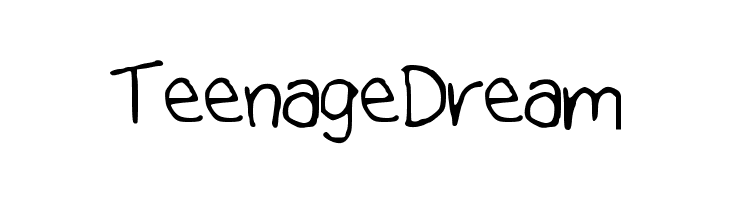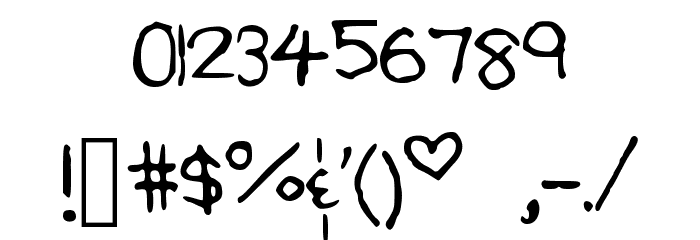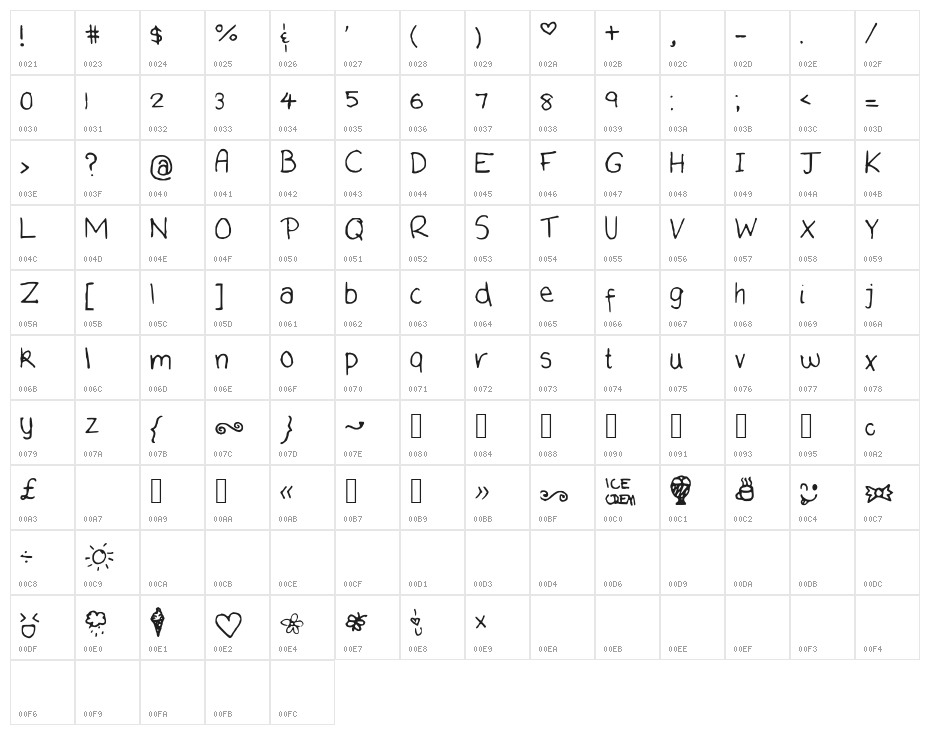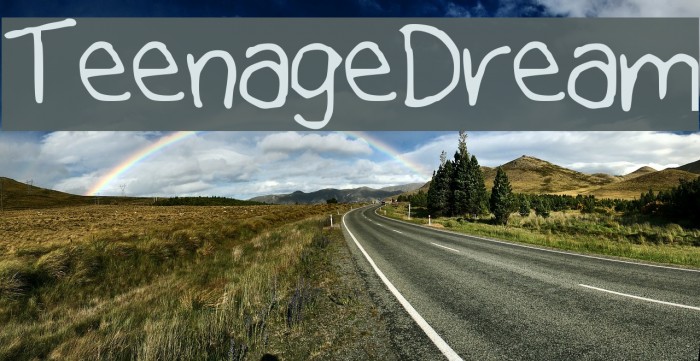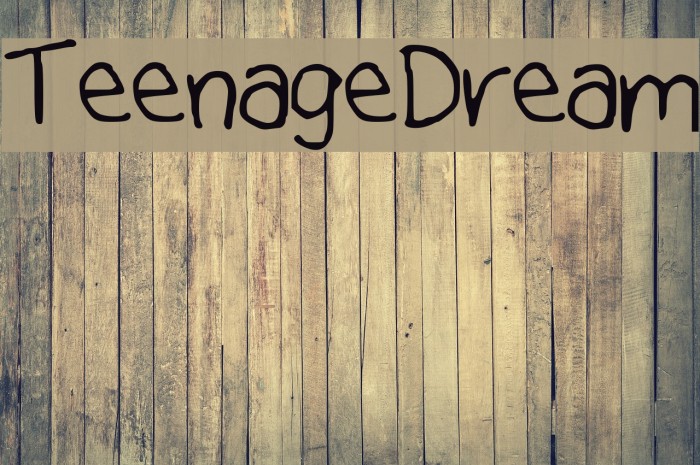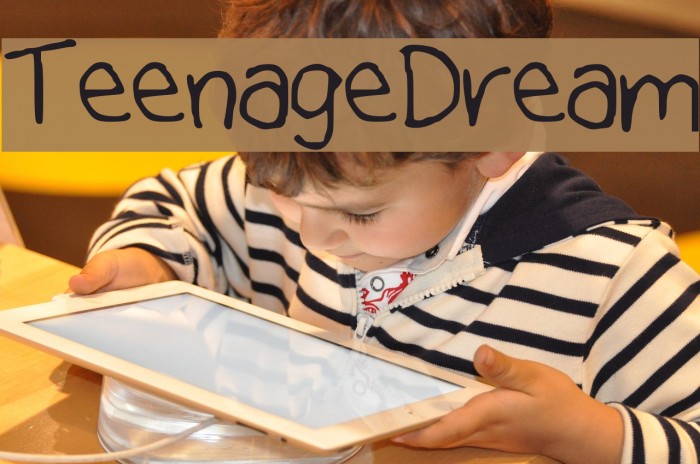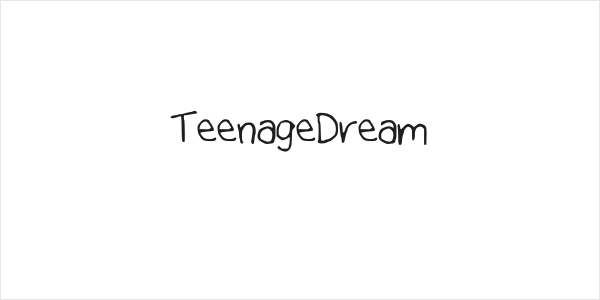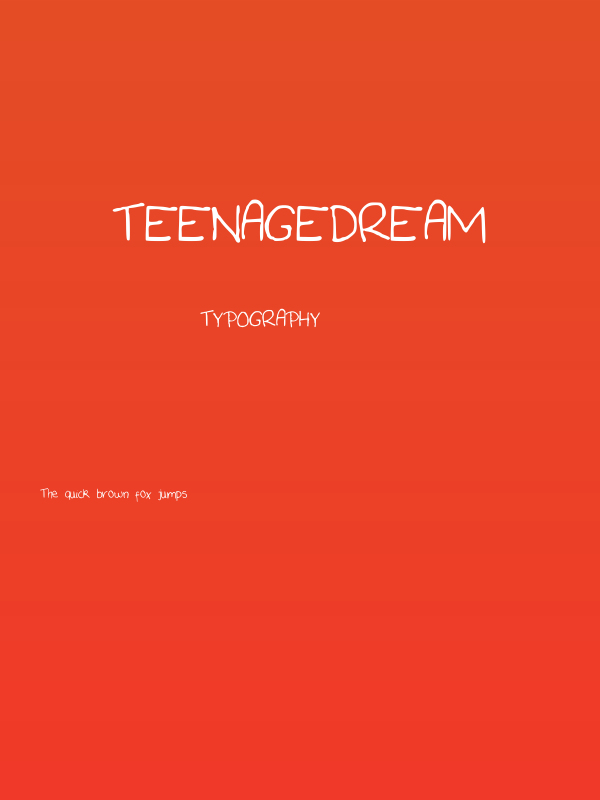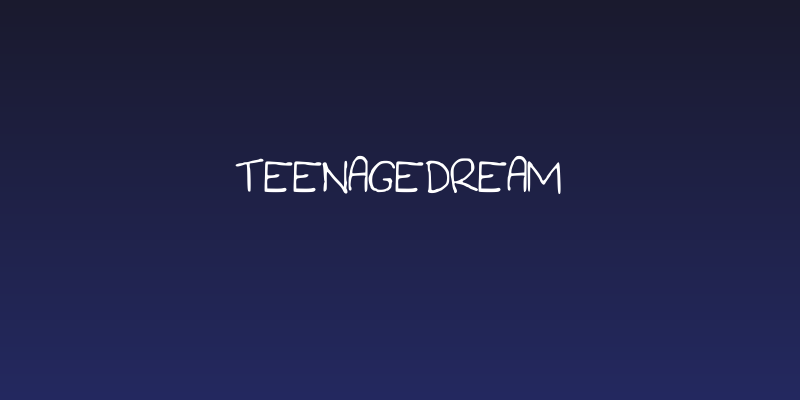
TeenageDream Font
TeenageDream Description
This playful and youthful font features a handwritten style with a casual and informal appearance. The characters are slightly irregular, giving it a whimsical and friendly vibe. The strokes are consistent in weight, providing a balanced look across both uppercase and lowercase letters. The numbers and special characters maintain the same playful style, making it versatile for various creative projects. Its unique charm is perfect for designs that aim to convey a sense of fun and approachability.
| Proposed Projects | Ideal for children's books, greeting cards, playful branding, and social media graphics. |